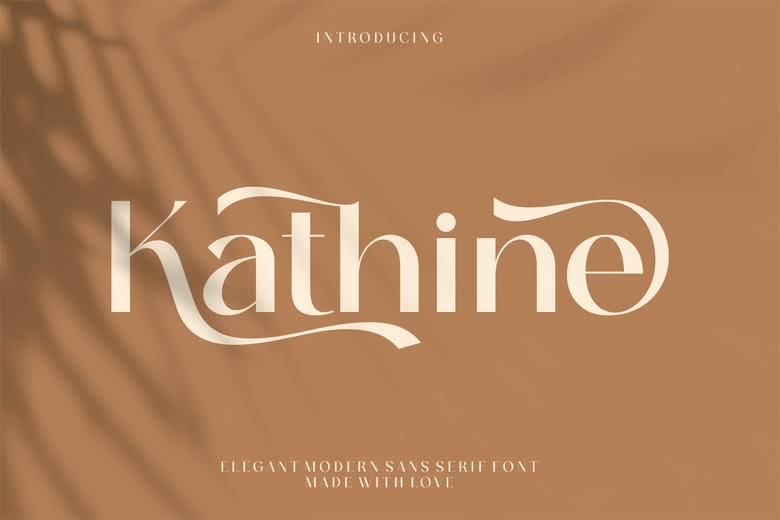
Kathine Font
Kathine is an elegant sans serif font that features smooth, flowing characters. Its design is modern and stylish, making it perfect for both headlines and body text. The clean lines and gentle curves give it a sophisticated look, adding a touch of grace to any project.
Kathine Sans Serif Font